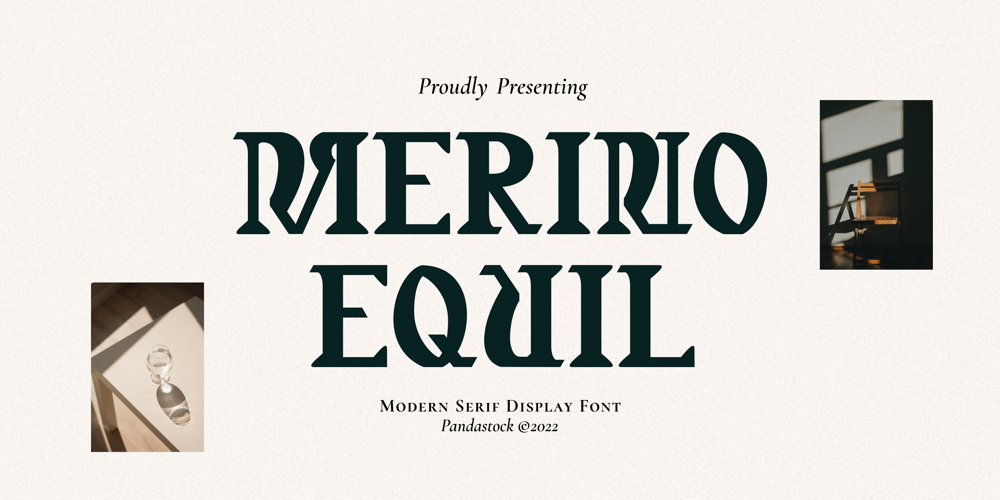
Merino Equil Font Family was designed by Aulia Savira Putri and published by Pandastock. Merino Equil contains 1 styles and family package options. Merino Equil is classic serif fonts with visual elegance, smooth curves, and beautiful ligatures clear, making your work look true and attractive.A very versatile font that works in both large and small sizes. This font is suitable for a wide variety of projects such as invitations, logos, branding, magazine, photography, card, product packaging, mugs, quotes, poster, labels, signatures, and more.Font which is perfect for all business sectors including personal projects, studio, corporate, creative agency, industrial, company, etc.